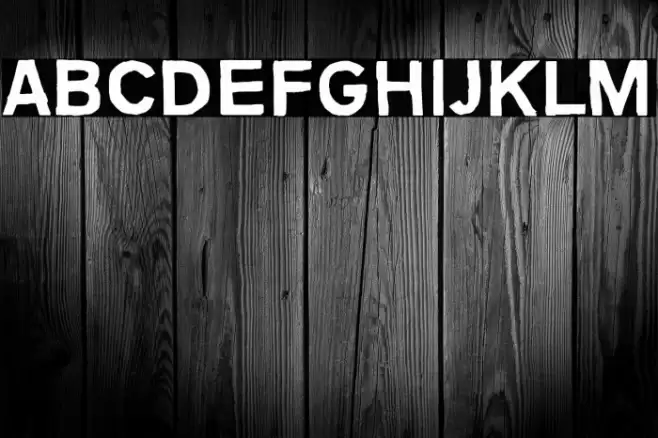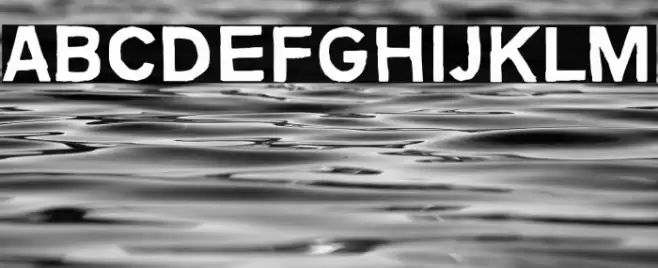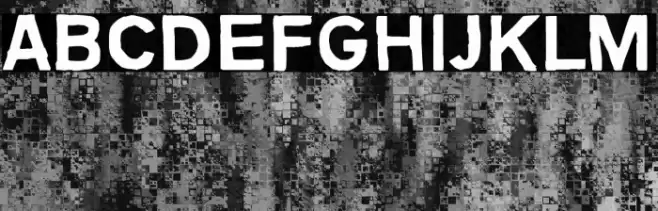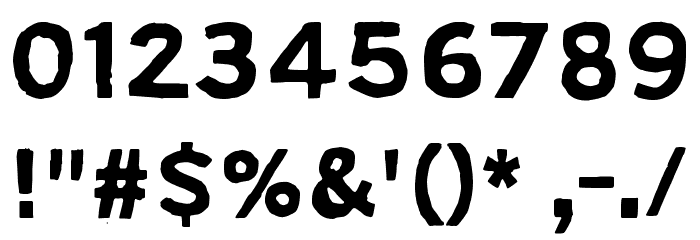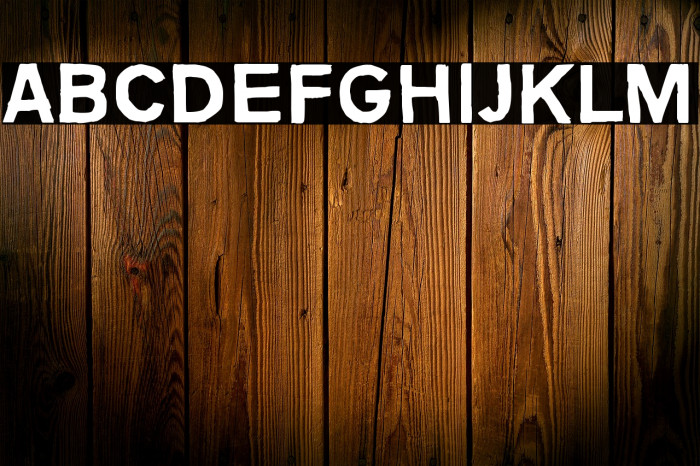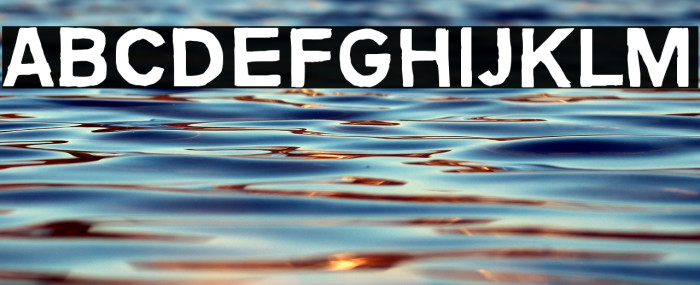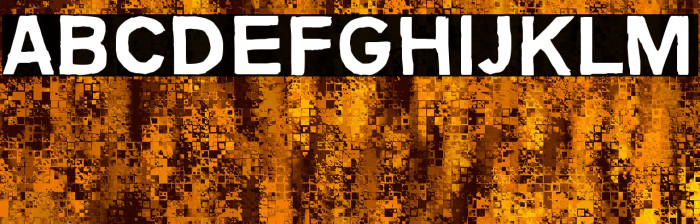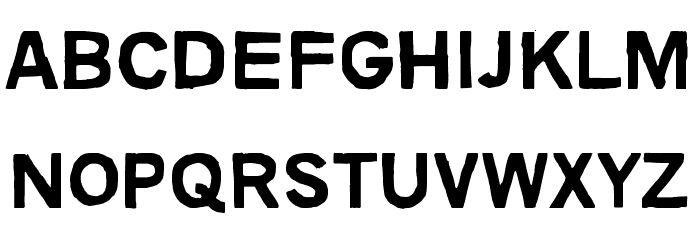
Animals are like people Font
This font features a bold and rugged style with a hand-drawn appearance, giving it a unique and organic feel. The characters are uppercase with a slightly uneven baseline, adding to its informal and playful nature. The strokes are thick and consistent, providing a strong visual impact. The font includes a full set of uppercase letters, numbers, and a variety of punctuation marks and symbols. Its boldness and distinctive style make it suitable for projects that require a strong and eye-catching design.
A bold, hand-drawn font with a rugged and organic style from Uncategorized fonts.
- Proposed Projects: Ideal for posters, headlines, logos, and branding materials that require a bold and distinctive look.